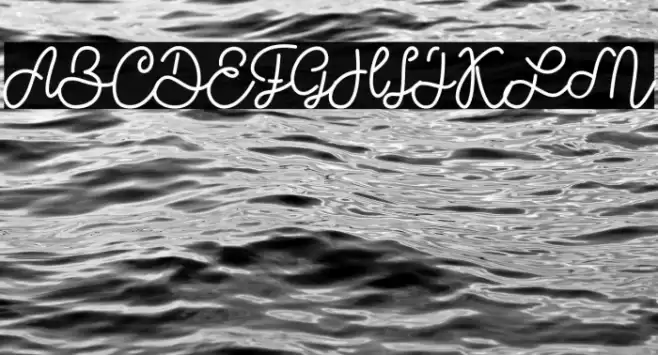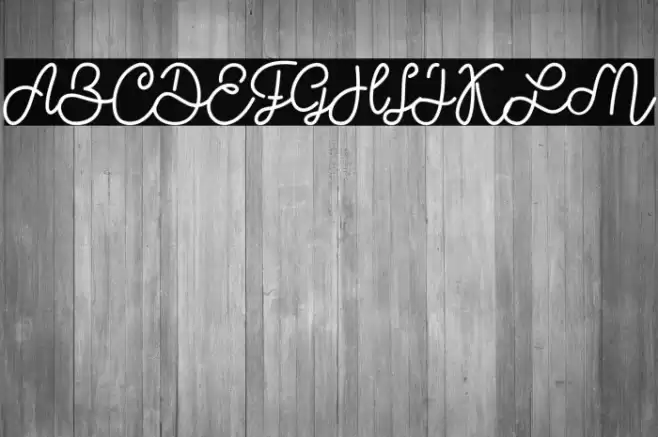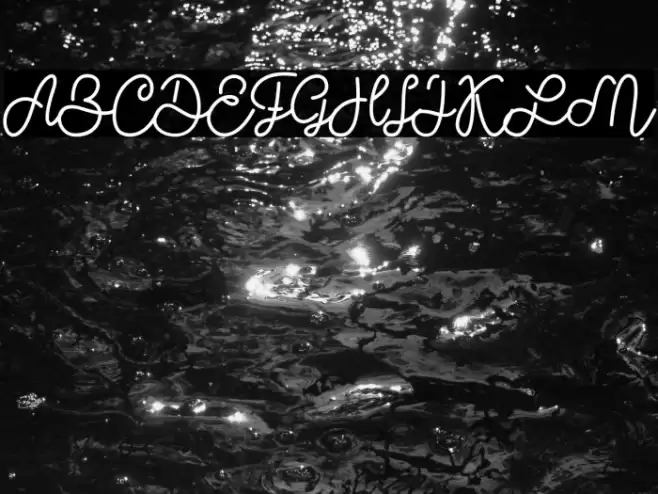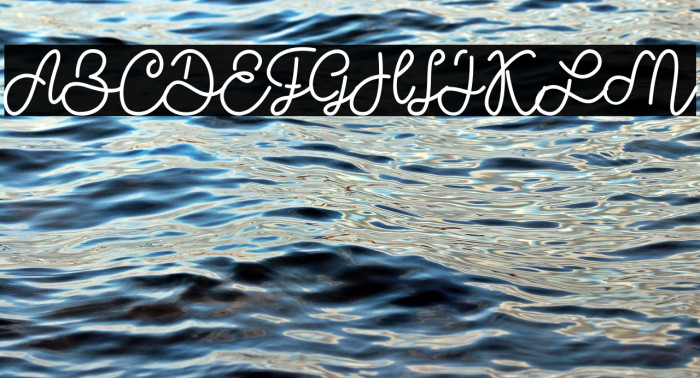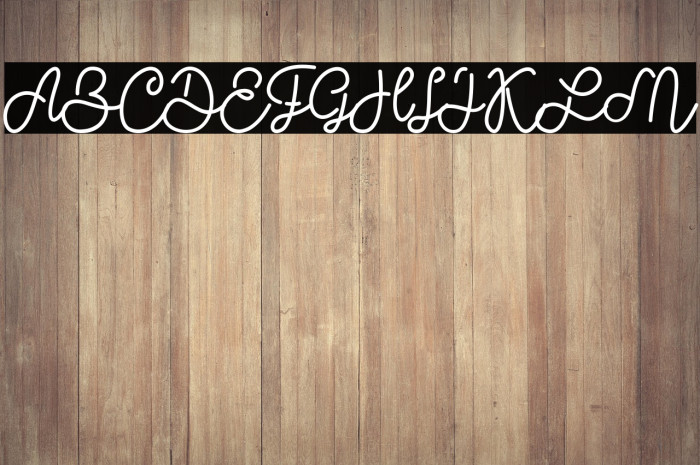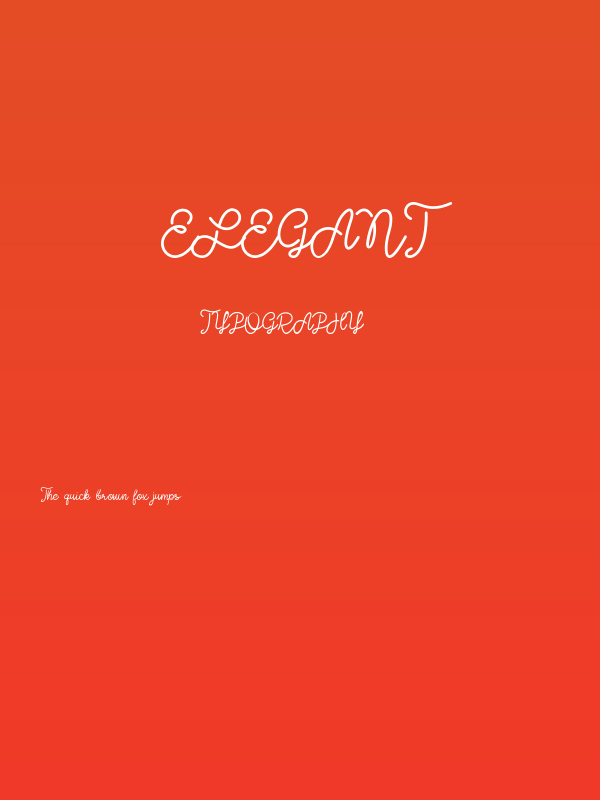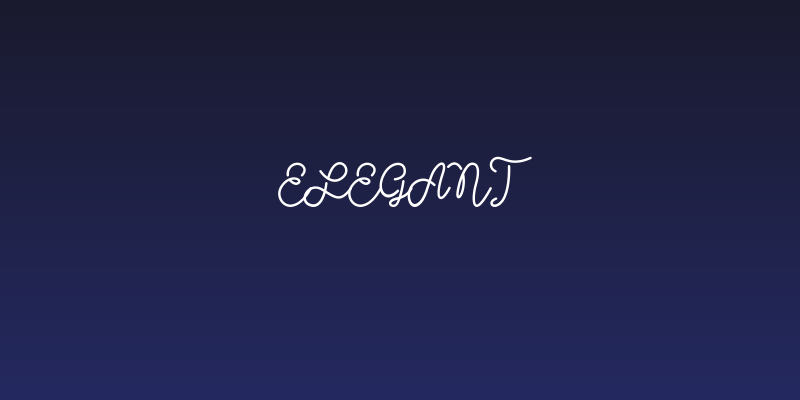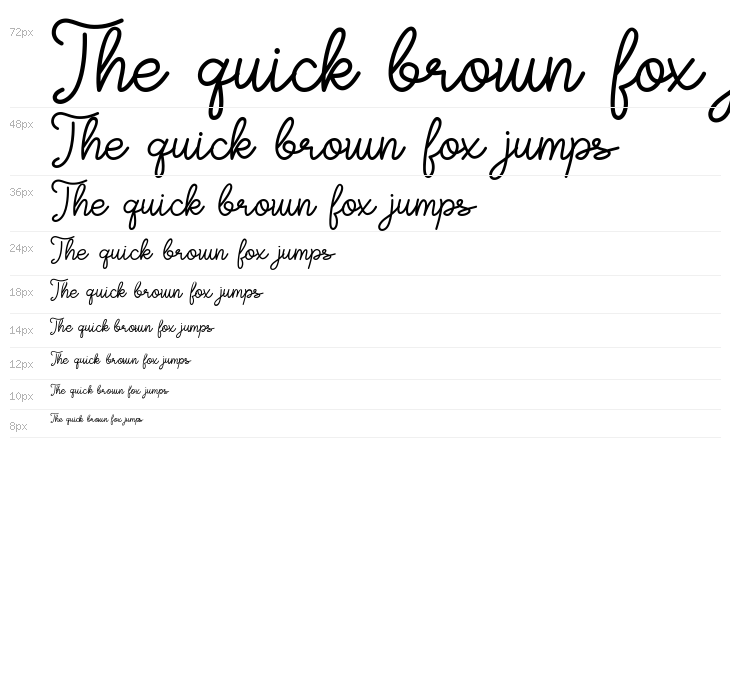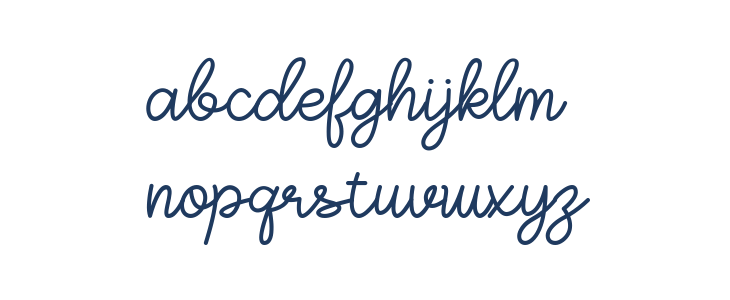
Elegant Font
Elegant Description
This font features an elegant and flowing script style, characterized by its smooth, continuous strokes that mimic the fluidity of handwriting. The uppercase letters are slightly more ornate, with loops and curves that add a touch of sophistication. The lowercase letters maintain a consistent flow, enhancing readability while preserving the script's artistic flair. The numerals and special characters are designed to complement the alphabet, ensuring a cohesive look across all text. This font is ideal for projects that require a personal, yet polished touch.
A flowing, elegant script font with smooth, continuous strokes from Uncategorized fonts.
- Font: Elegant
- Proposed Projects: Ideal for wedding invitations, greeting cards, personal branding, and elegant logos.
- Overall Style: Elegant, Decorative
- Use Case: Logos, Invitations, Personal Branding